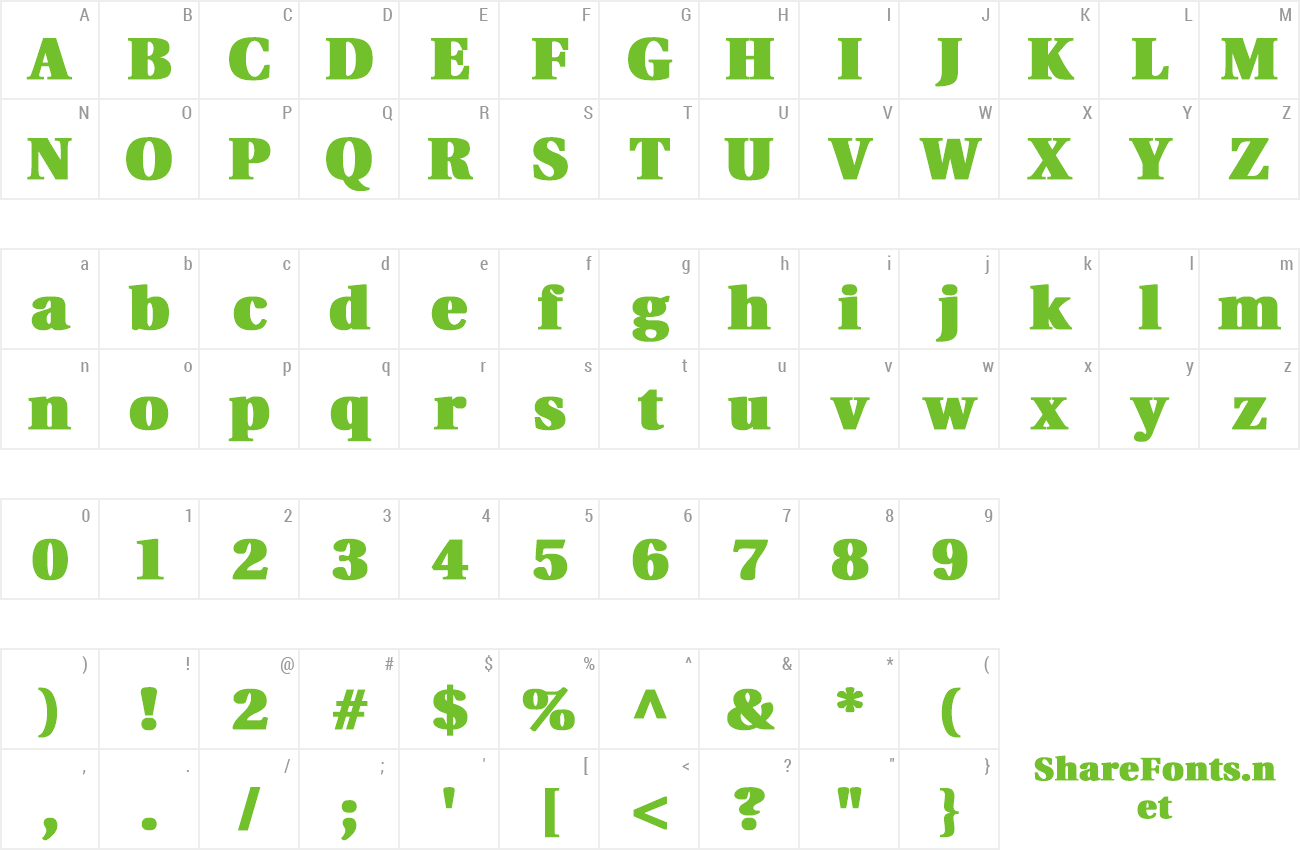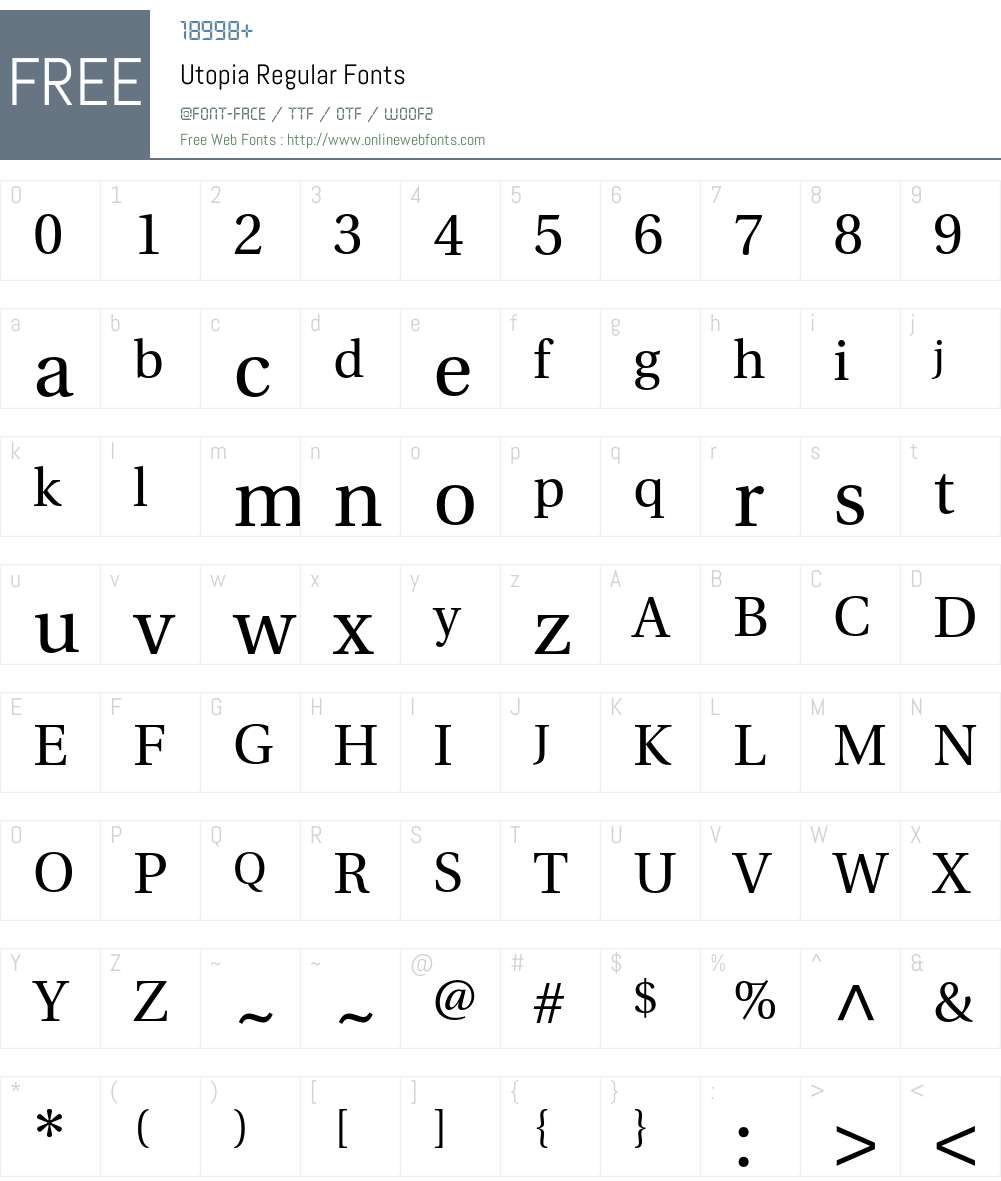
Utopia created by robert slimbach and presented by adobe in 1992 was intended to solve a number of typographic problems related to office correspondence. Sign in need helpsupport 0 your cartempty all all desktop digital ad ebook app server web articles browse. About this font family utopia is an adobe originals text face designed by robert slimbach in 1989.